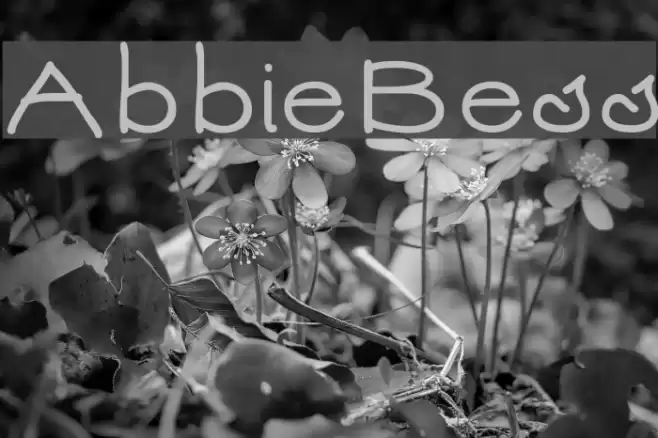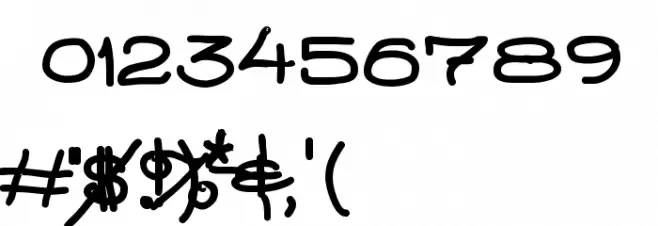
AbbieBess Font
AbbieBess Description
This font features a playful and whimsical design, characterized by its rounded and slightly irregular letterforms. The uppercase letters display a unique blend of curves and straight lines, giving them a hand-drawn appearance. The lowercase letters maintain a consistent style, with some characters exhibiting charming loops and swirls. The numerals are bold and easy to read, while the special characters add a touch of creativity with their varied shapes. Overall, the font exudes a friendly and approachable vibe, making it suitable for projects that require a personal touch.
A playful, hand-drawn font with rounded, irregular letterforms from Uncategorized fonts.
- Proposed Projects: Ideal for children's books, greeting cards, playful branding, and creative posters.
- Overall Style: Playful
- Use Case: Headlines, Logos, Creative projects